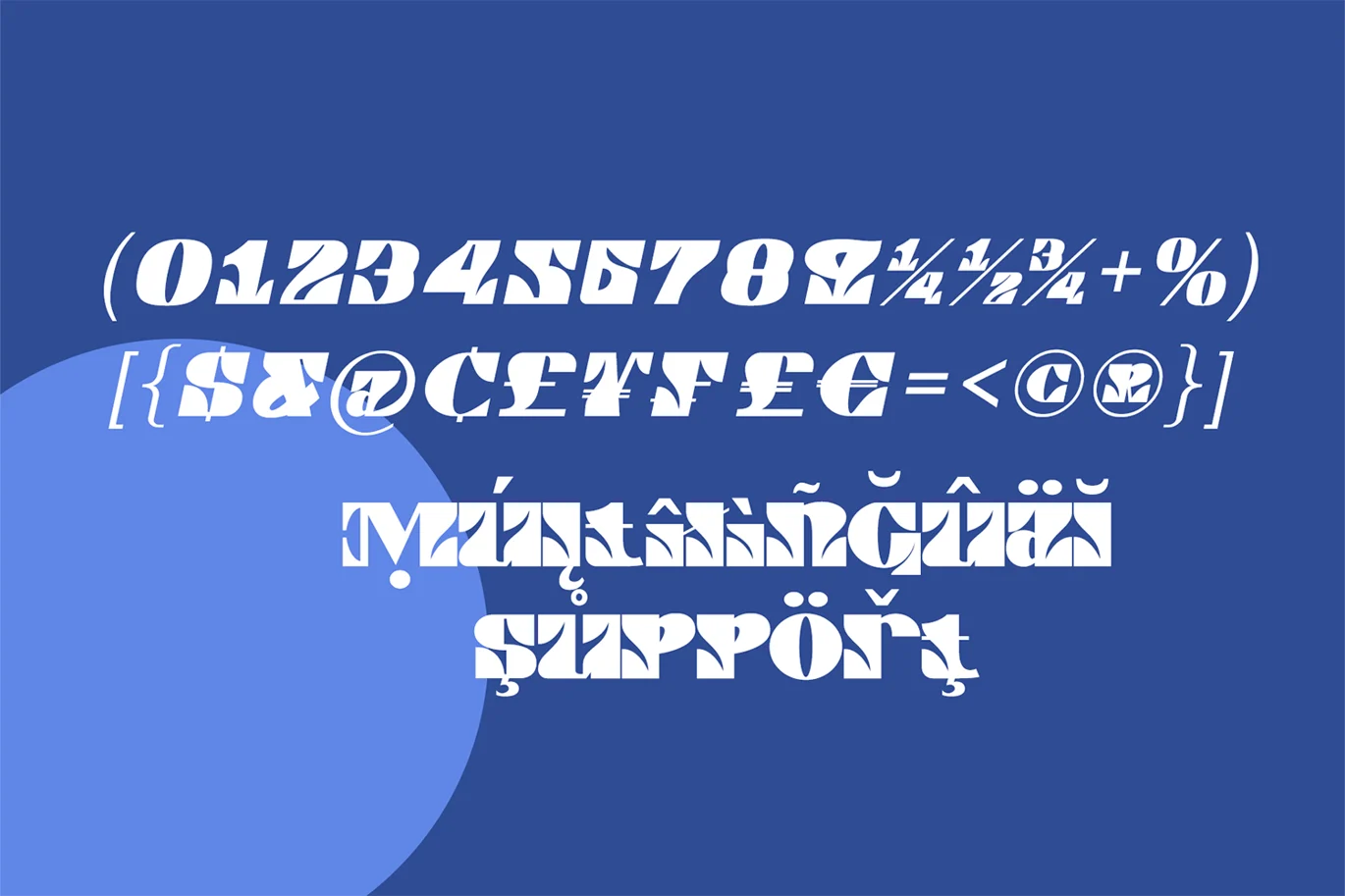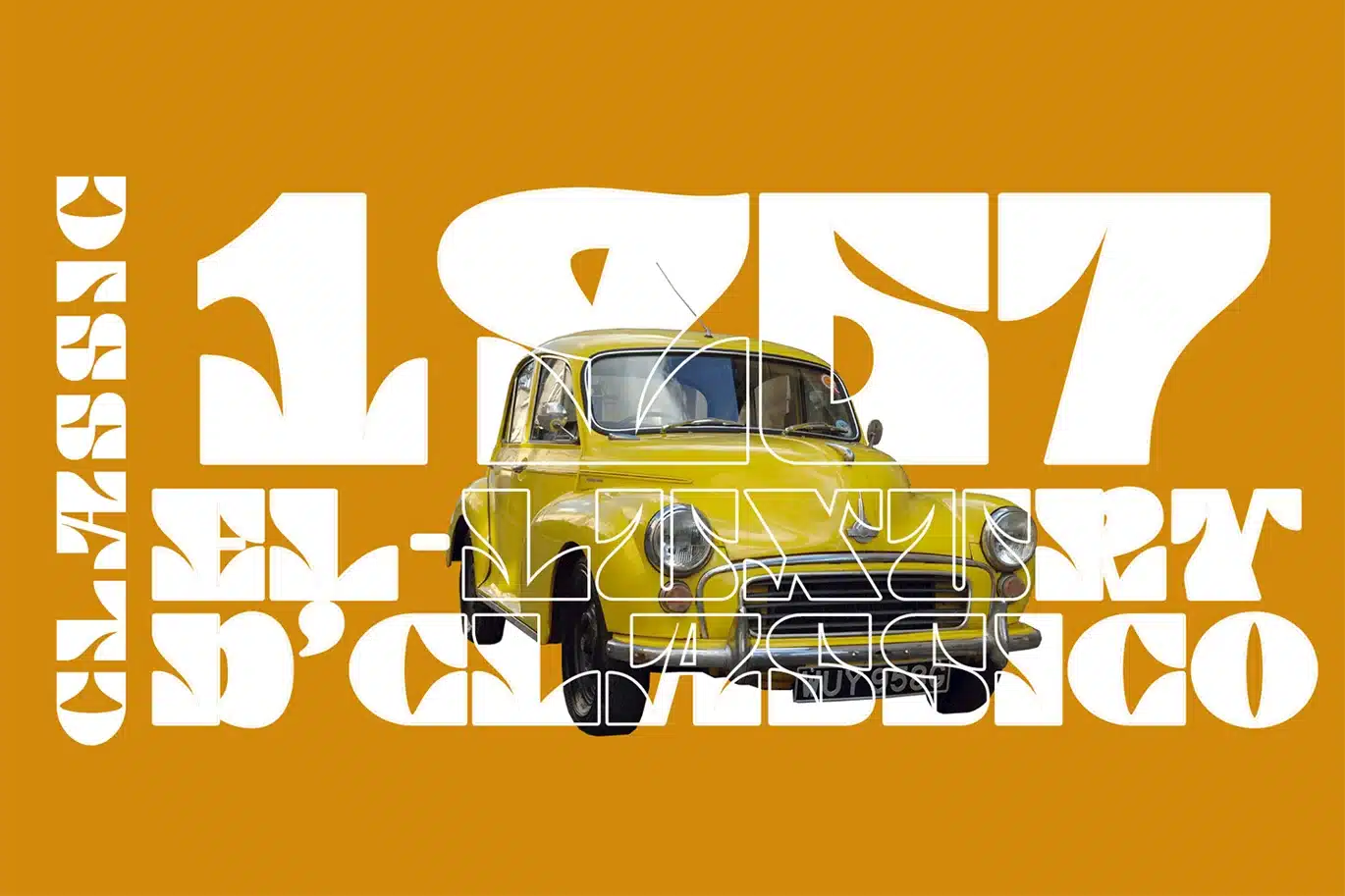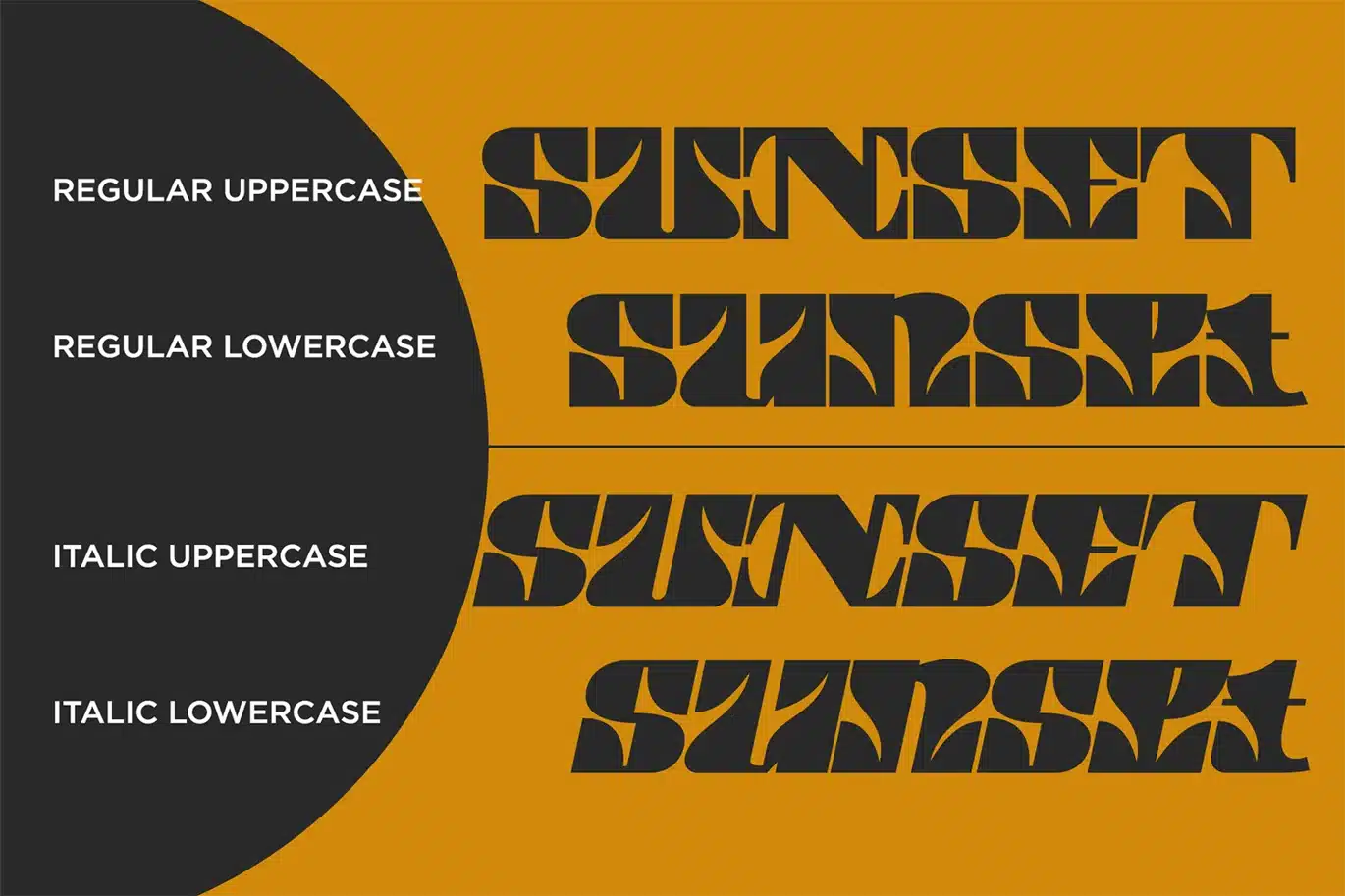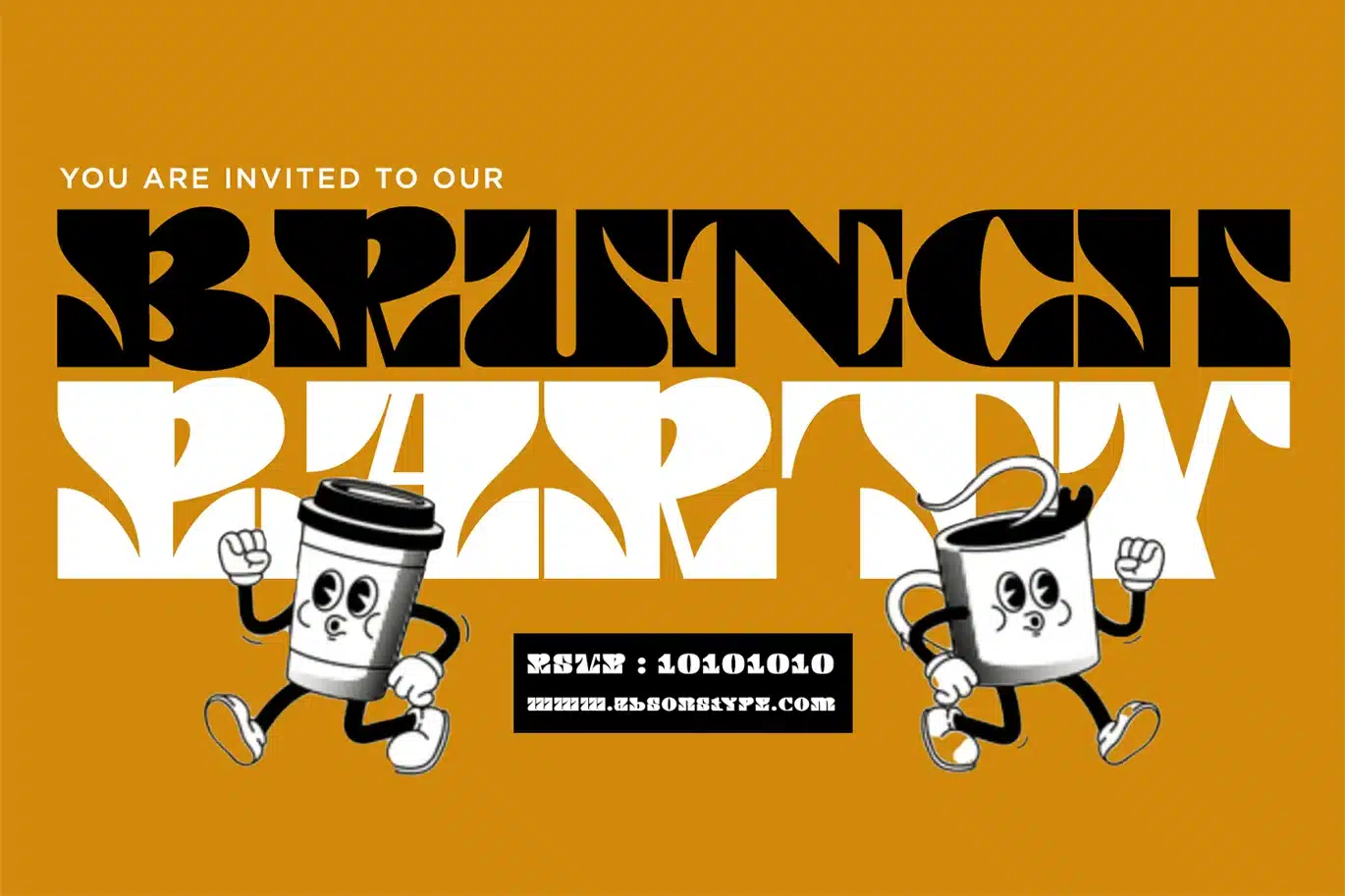
Bold Modern Corporate – Sunset Font
Sunset is a bold, high-contrast display typeface inspired by retro aesthetics and playful visual culture. With its chunky letterforms, soft curves, and distinctive cut-out details, Sunset brings a vibrant personality to any design. It blends vintage charm with modern clarity, making it perfect for eye-catching headlines and creative branding.
- High-contrast display style for strong visual impact
- Unique retro-inspired shapes with playful, organic curves
- Decorative ligatures that enhance typographic expression
- Multilingual support including Latin, Eastern European, Turkish, and Baltic characters
- Uppercase-focused design ideal for bold titles and statements
- Clean vector outlines for sharp rendering in both print and digital formats
- Grabs attention instantly — perfect for posters, packaging, and social media graphics
- Adds personality and warmth to branding projects
- Versatile retro feel that works across vintage, modern, and experimental designs
- Improves visual hierarchy with its bold and striking presence
- Easy to use with well-crafted glyphs and stylistic alternates
Sunset is the perfect choice when you want your typography to stand out, evoke nostalgia, and deliver a fun yet stylish impression.